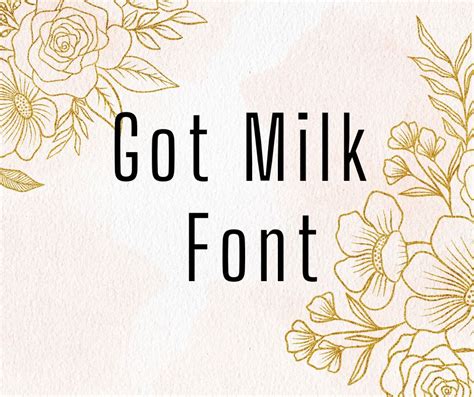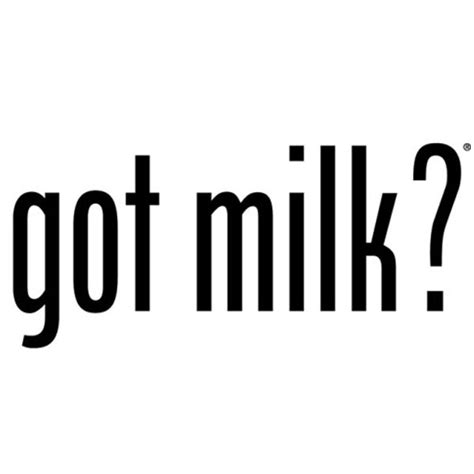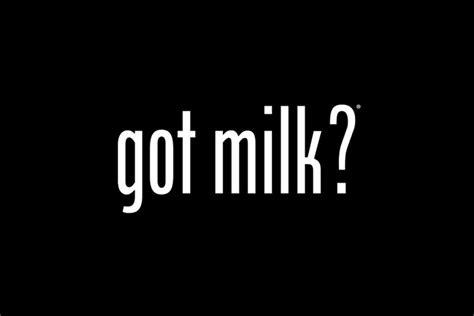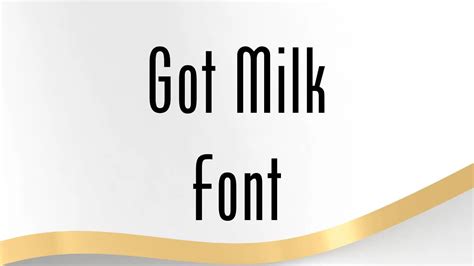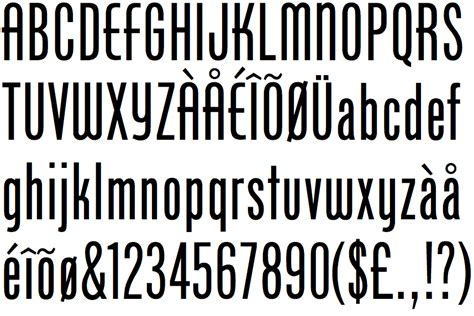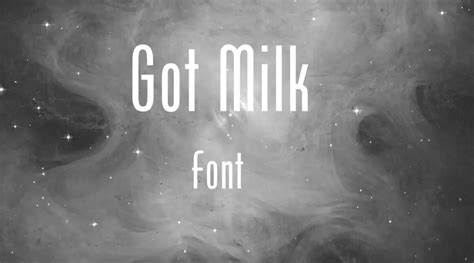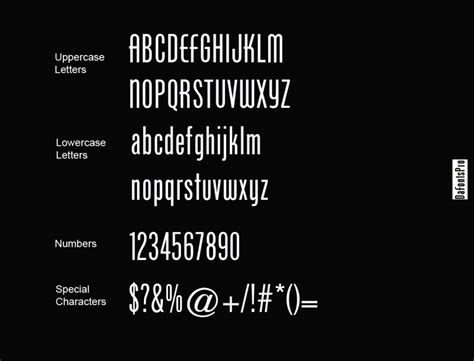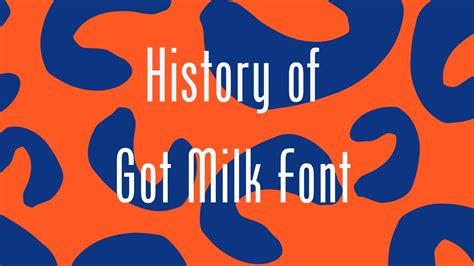
The iconic phrase "Got Milk?" has become synonymous with a specific font style that has left a lasting impression on popular culture. This distinctive font, often associated with the famous milk advertising campaign, has become an integral part of design and typography. In this introduction, we will explore the Got Milk Font, its unique characteristics, and its impact on the world of typography.
The font is a custom-designed typeface that captures the essence of the "Got Milk?" campaign, which was created by the Chiat/Day advertising agency for the California Milk Processor Board in 1993. The campaign's goal was to promote milk consumption among teenagers, and the font played a crucial role in its success.
One of the key benefits of this font is its versatility. It can be used in various design contexts, from print media to digital interfaces, and has become a popular choice for logos, headlines, and promotional materials. Its distinctive style, with its bold and playful letters, has made it instantly recognizable and memorable.